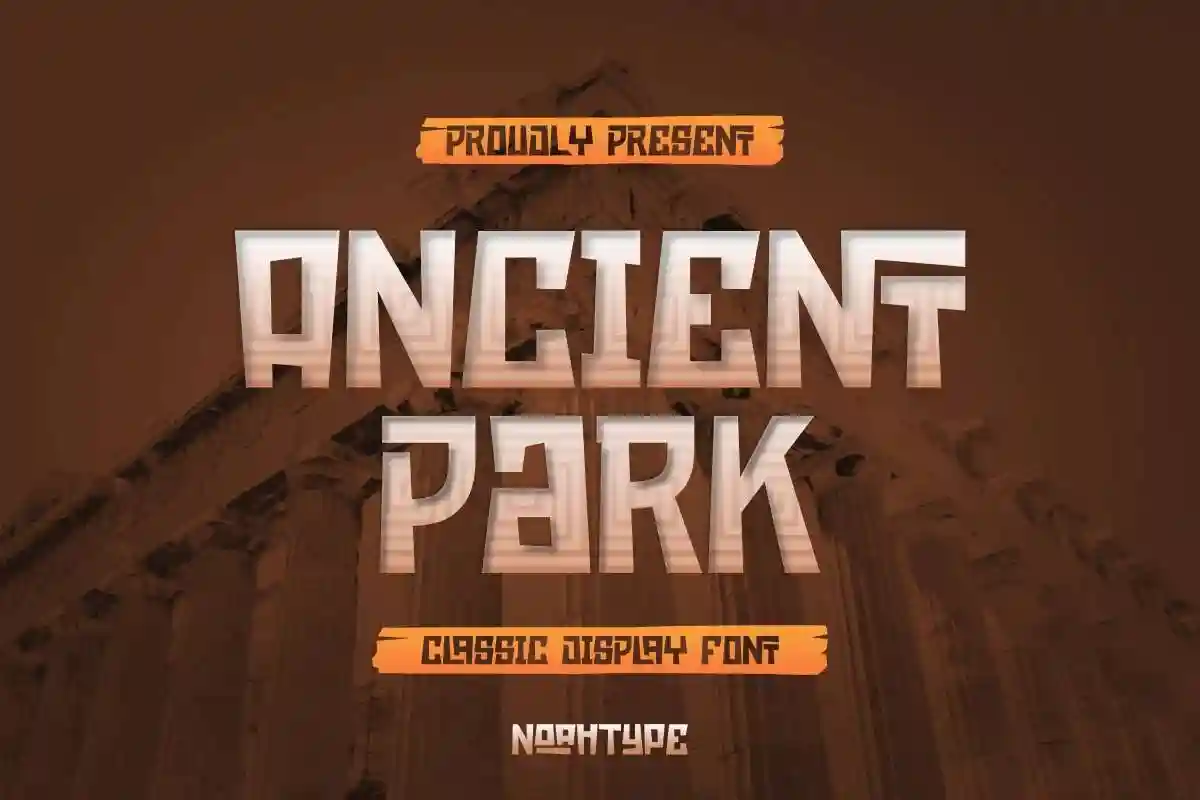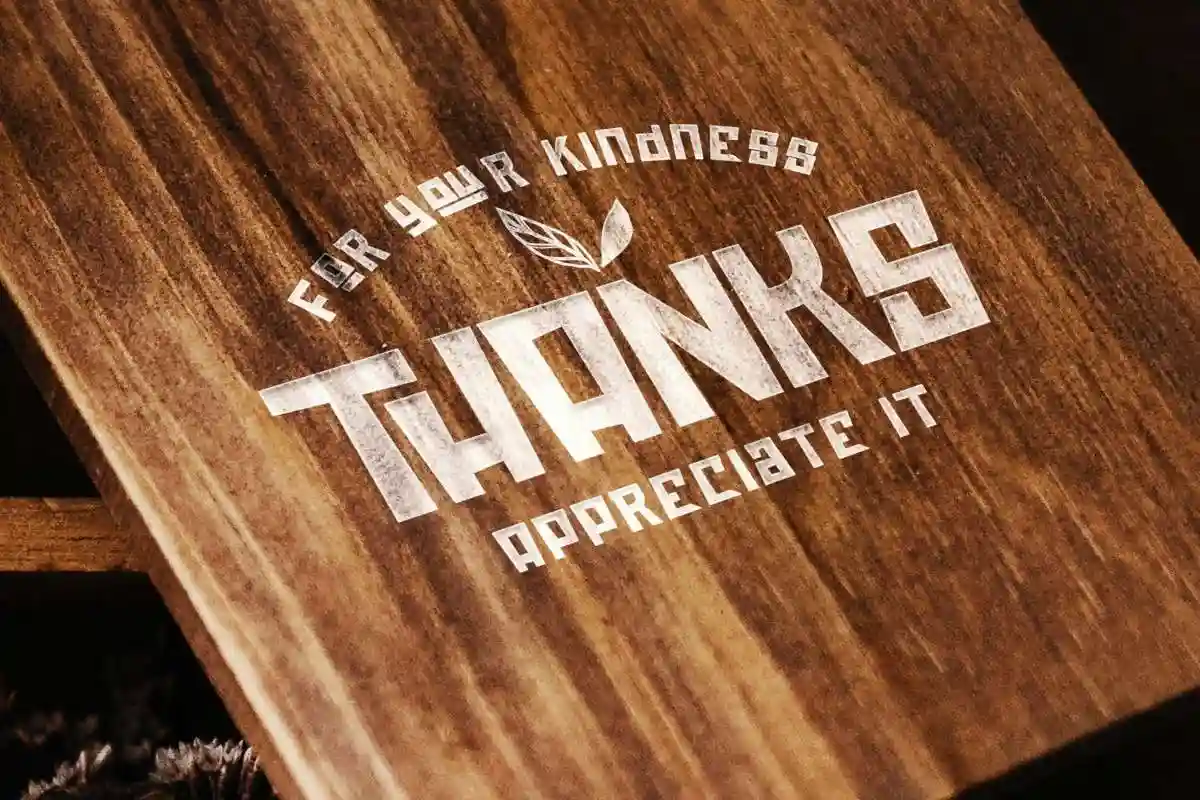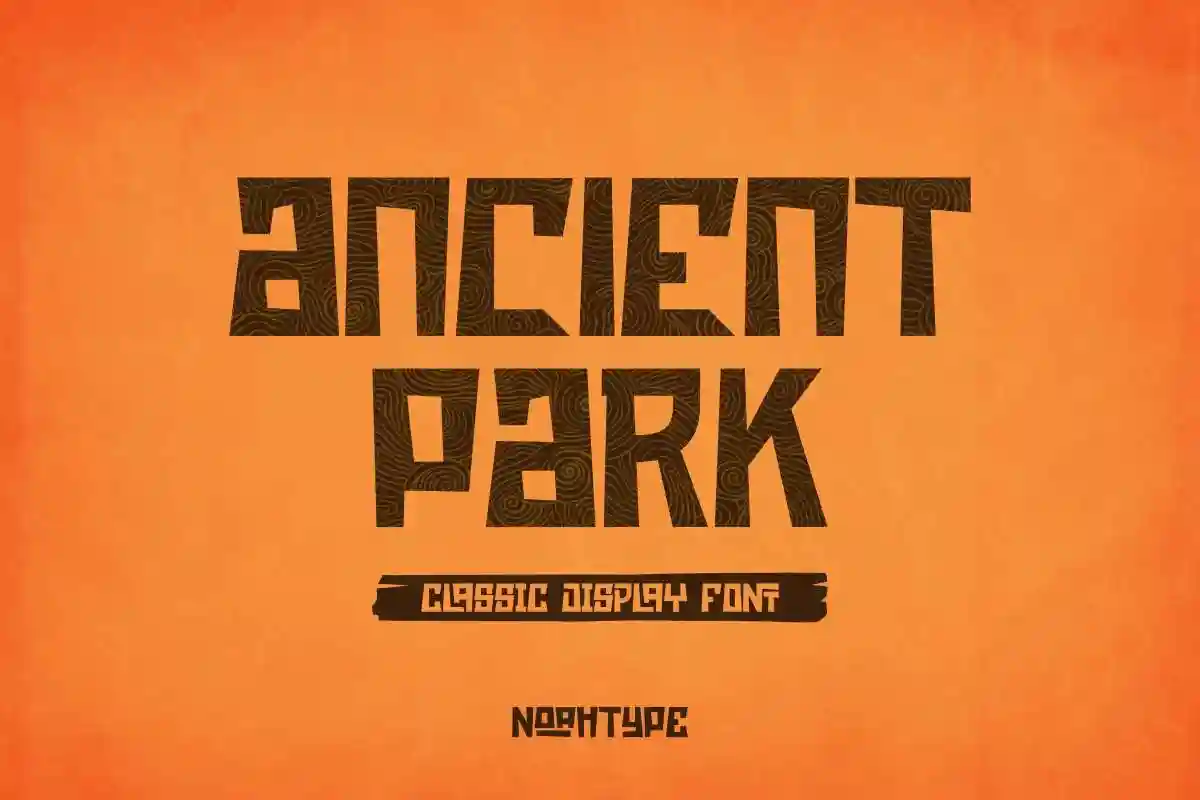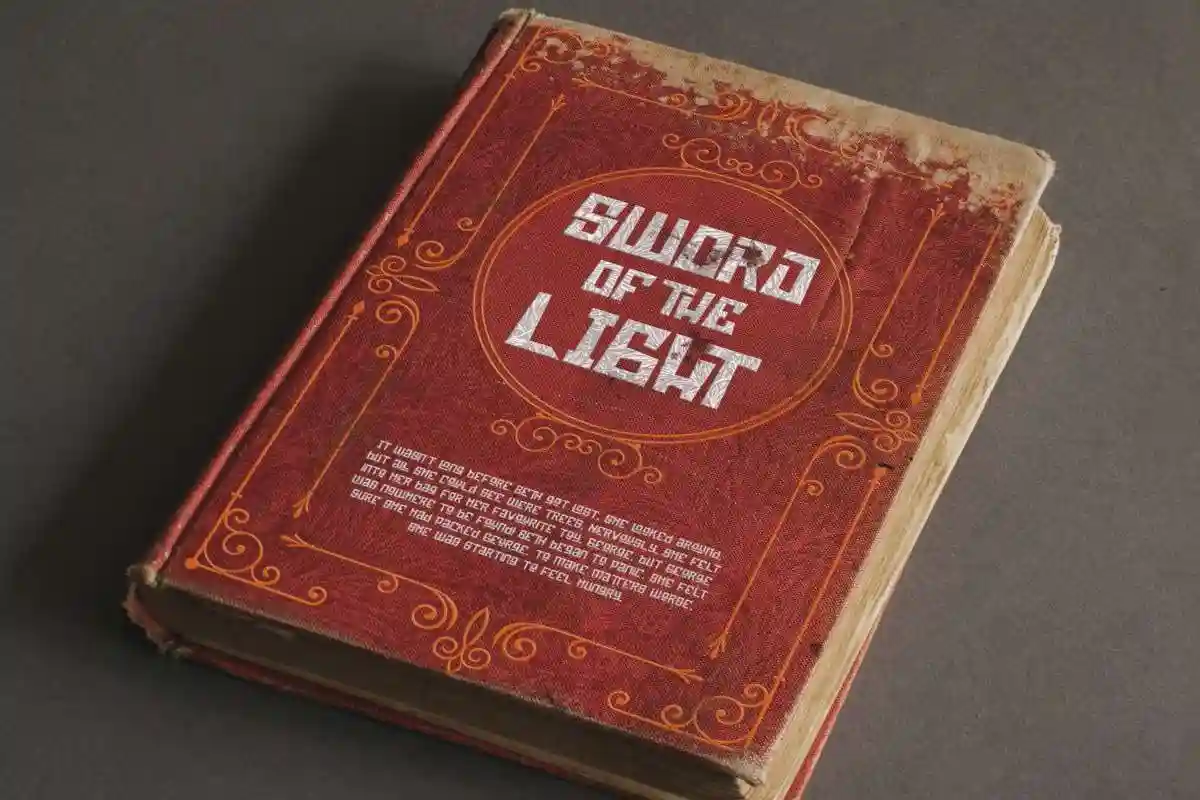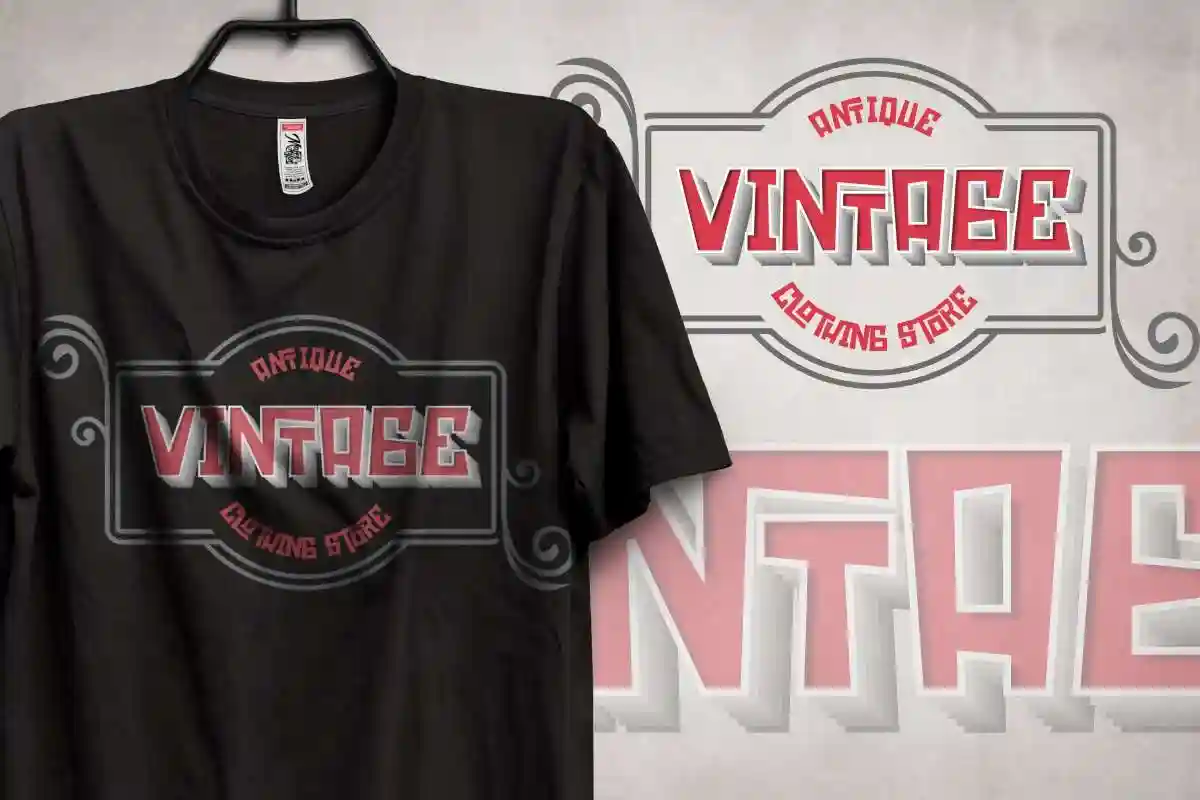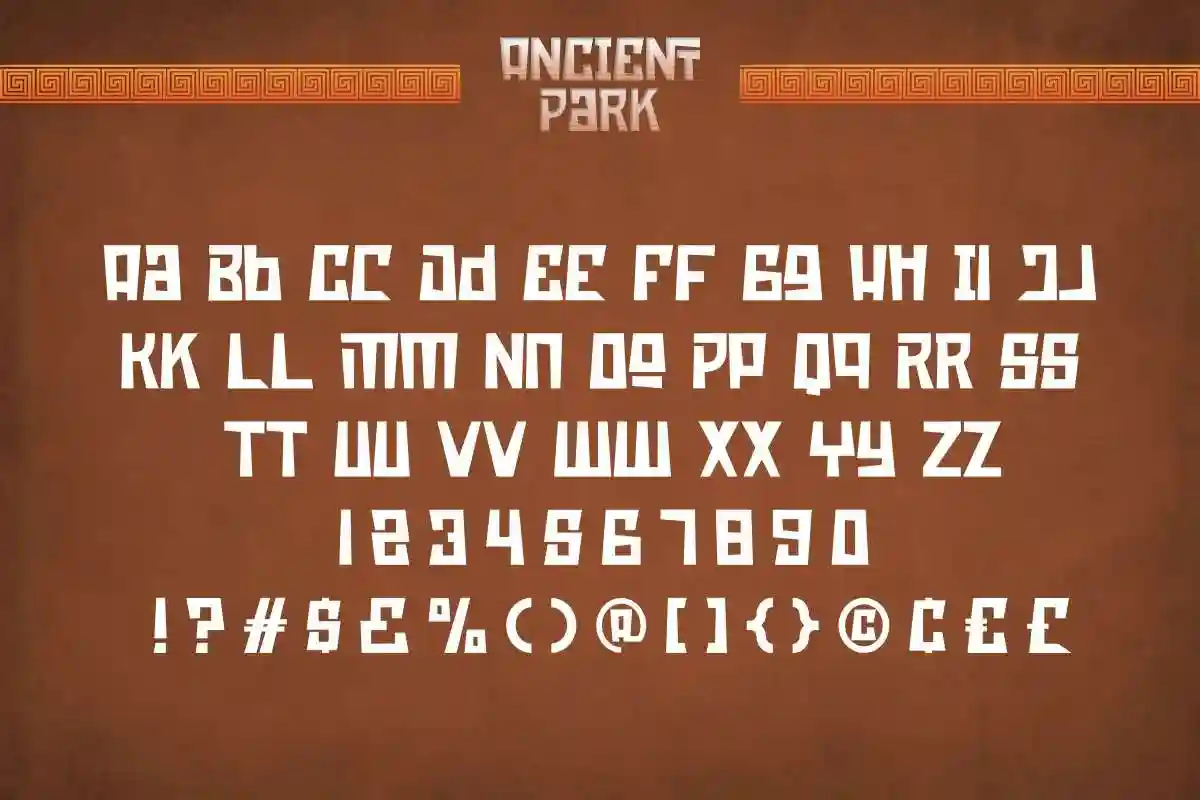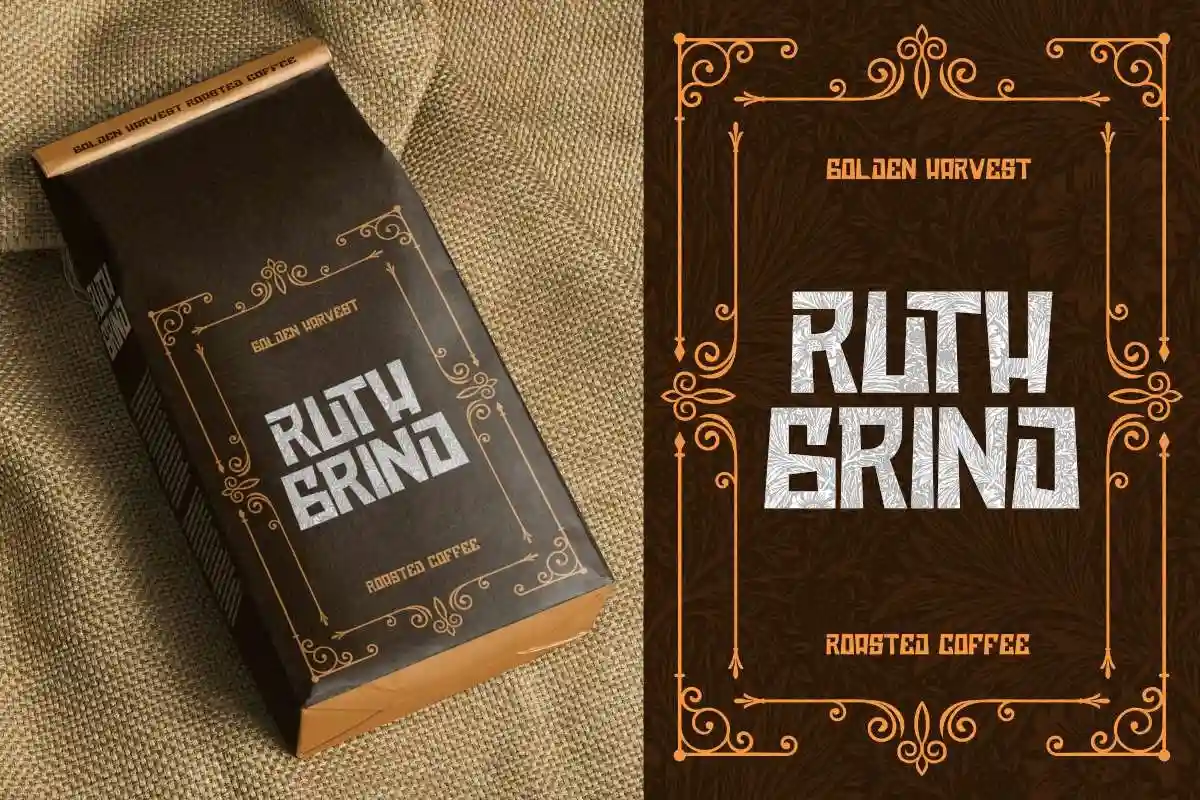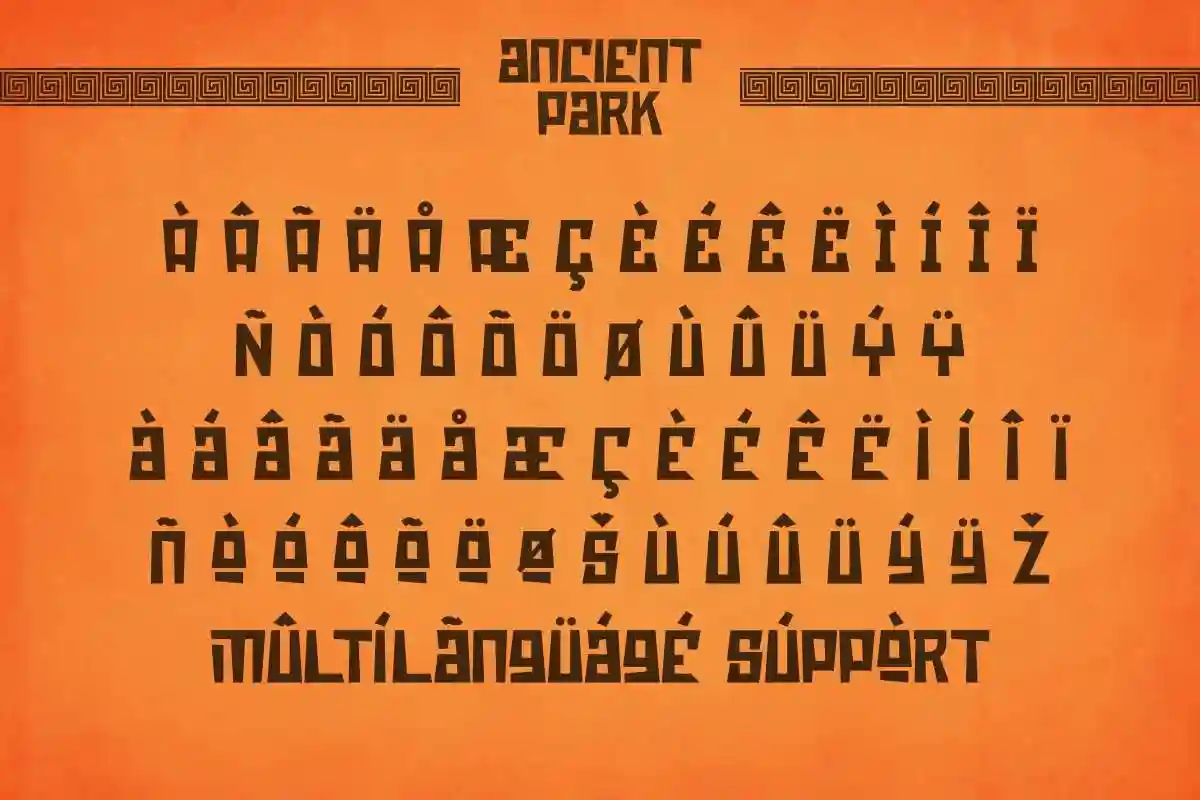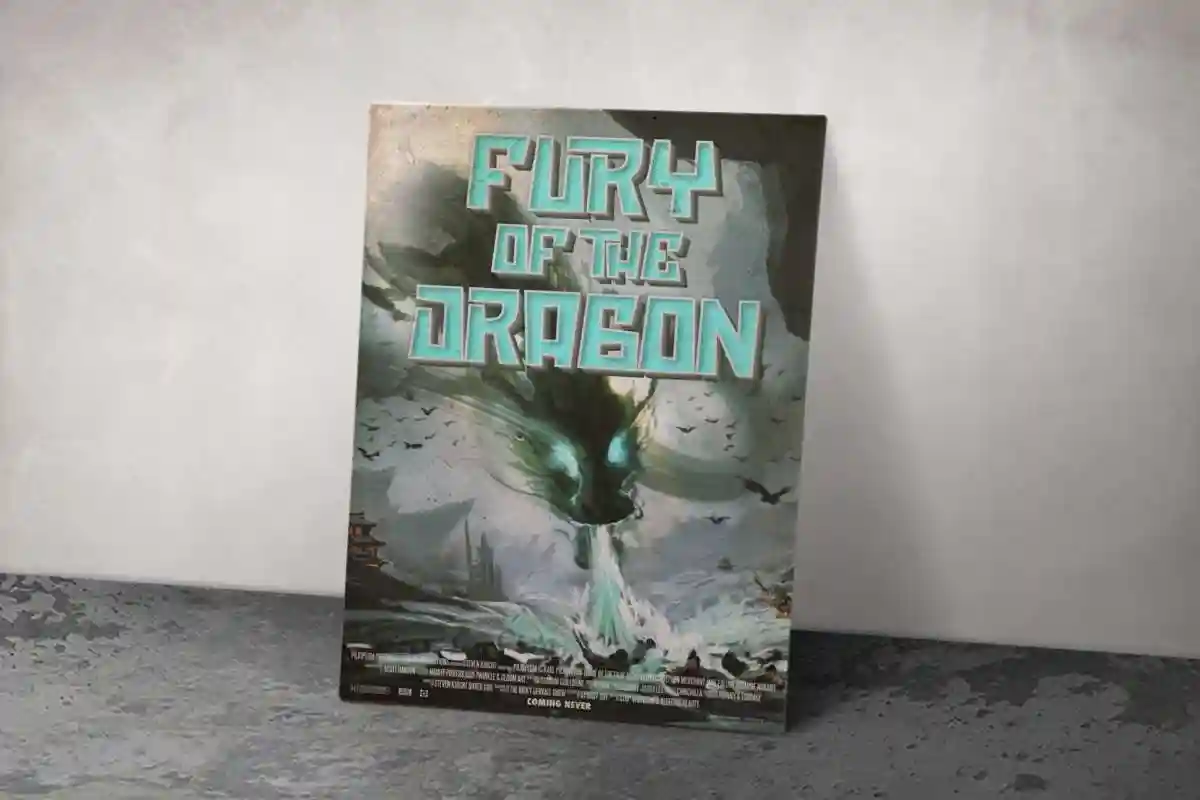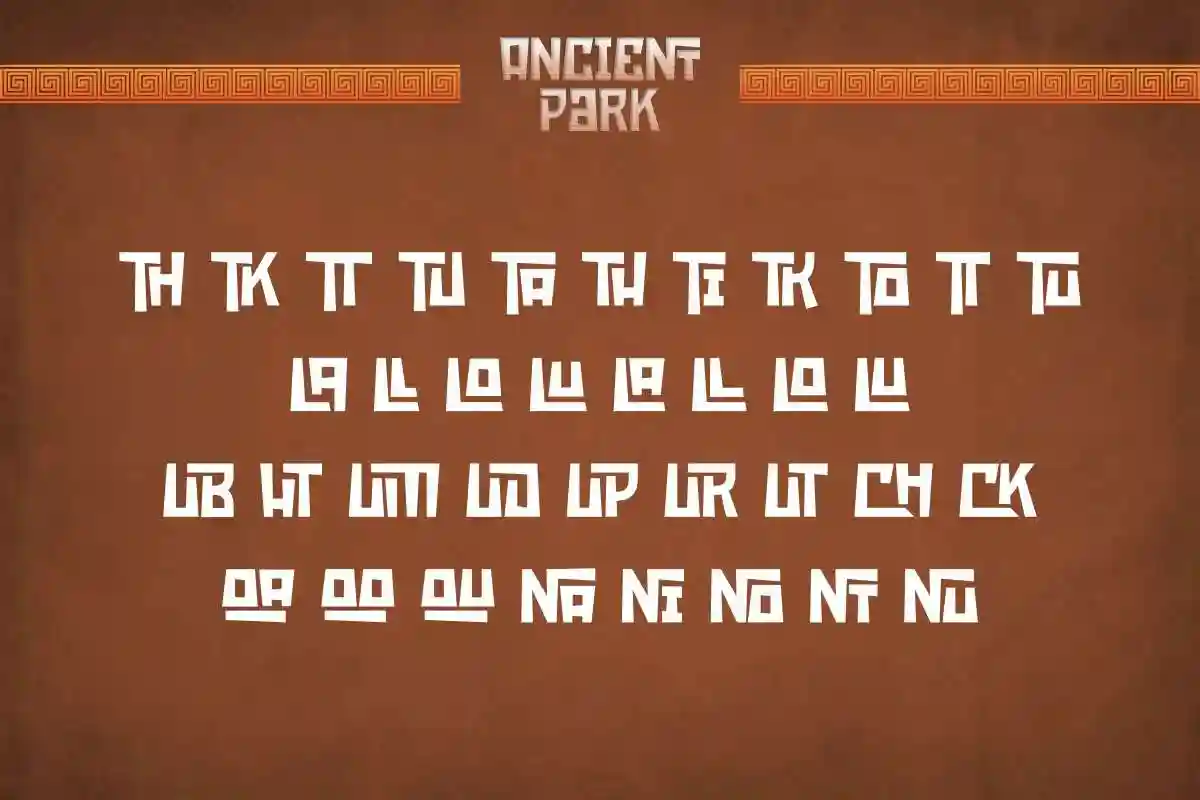
Ancient Park Font is a fun display font with classic and cute letters style. This fancy font is inspired from games, museum title and zoo lettering. It will be amazing for any project including : comic book, fashion, festival, events, brandings and many more. Ancient Park Font includes Uppercase and Lowercase Basic Characters, Numerals and Punctuation.
Ancient Park is more than just a display font. It’s a creative journey. Featuring both uppercase and lowercase characters, numbers, and a full set of punctuation, it also comes with a charming set of alternates and ligatures to give your typography that unique, handcrafted feel. Whether you’re designing a comic book cover, event poster, festival banner, or kids’ product branding, this font makes every letter pop with life.
Perfect for:
Comic & Cartoon Projects
Children’s Books & Toys
Zoo, Park, or Museum Signage
Retro or Vintage-Themed Brands
Festivals, Events, and Campaign Posters